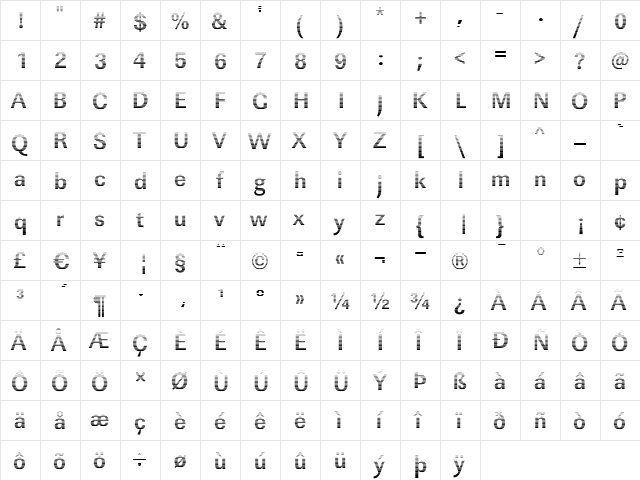
JeffBeckerGradientC Bold
Design Context for JeffBeckerGradientC Typeface
JeffBeckerGradientC is a composed and adaptable typeface that performs quietly and consistently across a wide range of design contexts. Its bold stroke weight gives it real presence on the page.